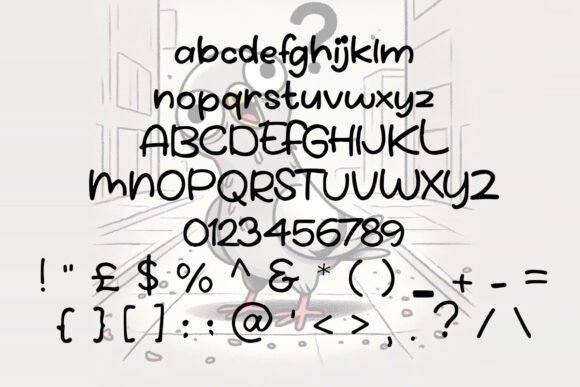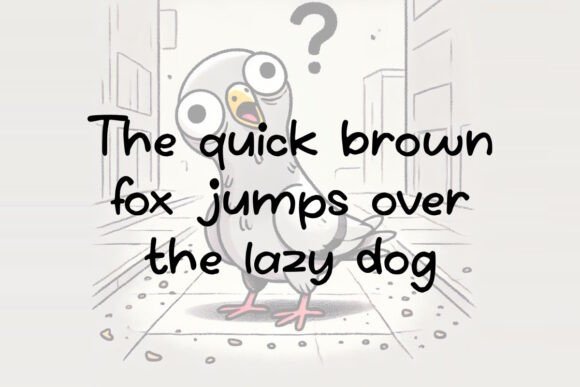
Baffled Pigeon Font: Adding a Touch of Playful Awkwardness to Your Designs
In the world of typography, fonts can evoke a wide range of emotions and personalities. From sleek and modern to quirky and playful, the right font can make all the difference in a design project. If you’re looking for a font that captures the essence of confusion and playfulness, look no further than the Baffled Pigeon Font. This delightfully quirky font is sure to add a touch of character and charm to your designs, whether you’re a designer, crafter, or simply someone who appreciates the beauty of typography.
The Inspiration Behind Baffled Pigeon Font
The Baffled Pigeon Font is inspired by the image of a confused pigeon staring at a traffic light, unsure of its next move. The font’s creator aimed to capture the essence of this relatable moment in a typeface that exudes a sense of playful awkwardness. With its wobbly, uneven strokes and hand-drawn charm, Baffled Pigeon Font is the perfect choice for projects that need a dash of personality and whimsy.
Characteristics of Baffled Pigeon Font
So, what makes Baffled Pigeon Font so unique? Here are a few of its key characteristics:
- Wobbly, uneven strokes: Baffled Pigeon Font features deliberate imperfections that give it a hand-drawn feel. The strokes are wobbly and uneven, adding to the font’s charm and character.
- Hand-drawn charm: The font’s hand-drawn quality makes it feel approachable and relatable. It’s as if the letters were drawn by a friendly, if slightly confused, pigeon.
- Playful awkwardness: Baffled Pigeon Font is all about embracing imperfection. It’s a font that doesn’t take itself too seriously, making it perfect for projects that need a lighthearted touch.
Uses for Baffled Pigeon Font
Baffled Pigeon Font is a versatile typeface that can be used in a variety of design projects, including:
- Branding and logos: Add a touch of personality to your brand’s logo with Baffled Pigeon Font. Its playful awkwardness makes it perfect for companies that want to stand out from the crowd.
- Invitations and greeting cards: Baffled Pigeon Font is a great choice for invitations and greeting cards that need a dash of whimsy. It’s sure to bring a smile to the recipient’s face.
- Social media graphics: Use Baffled Pigeon Font to add a touch of personality to your social media graphics. Its hand-drawn charm makes it perfect for creating engaging and shareable content.
- Crafting and DIY projects: Baffled Pigeon Font is a great choice for crafters and DIY enthusiasts who want to add a personal touch to their projects. Use it to create custom signs, labels, and other decorative items.
Tips for Using Baffled Pigeon Font
Here are a few tips for getting the most out of Baffled Pigeon Font:
- Use it sparingly: Baffled Pigeon Font is a bold and playful typeface. Use it sparingly to add emphasis and personality to your designs.
- Pair it with a neutral font: Balance out Baffled Pigeon Font with a neutral font to create visual interest and hierarchy in your designs.
- Experiment with colors and textures: Baffled Pigeon Font looks great in a variety of colors and textures. Experiment with different combinations to find the one that works best for your project.
Baffled Pigeon Font is a unique and playful typeface that’s sure to add a touch of character and charm to your designs. Its wobbly, uneven strokes and hand-drawn charm make it perfect for projects that need a dash of personality and whimsy. Whether you’re a designer, crafter, or simply someone who appreciates the beauty of typography, Baffled Pigeon Font is a great choice for anyone looking to add a little bit of playful awkwardness to their work.